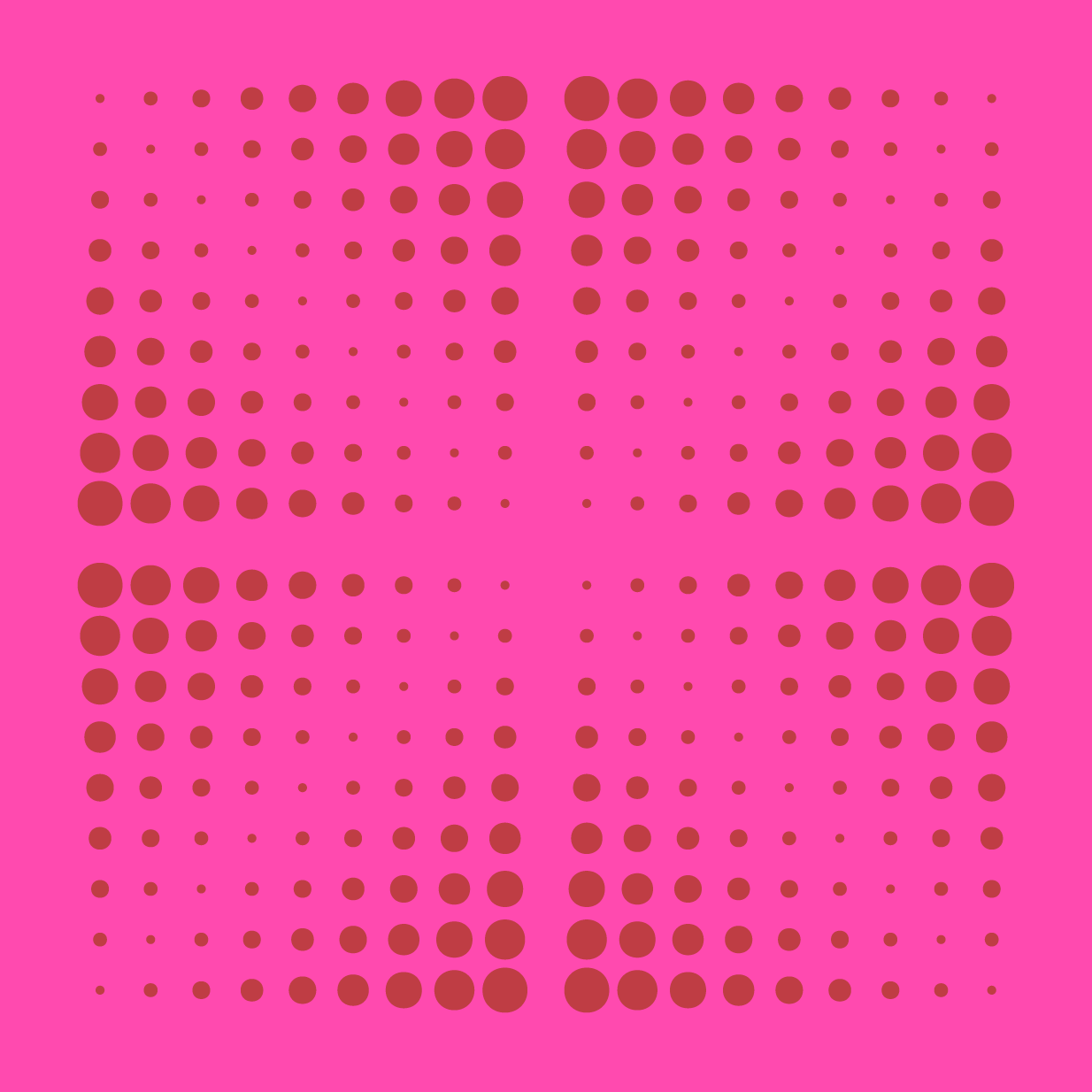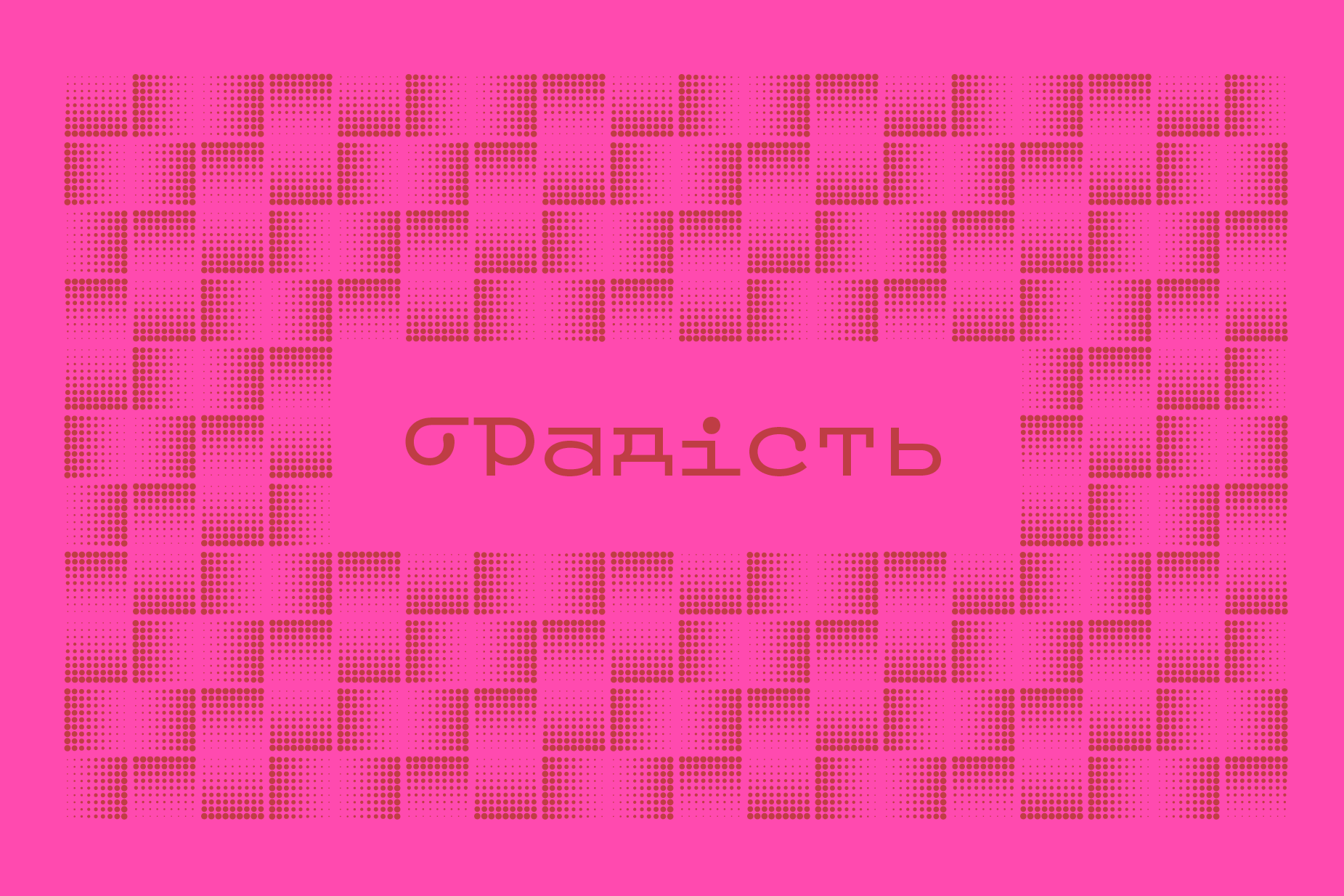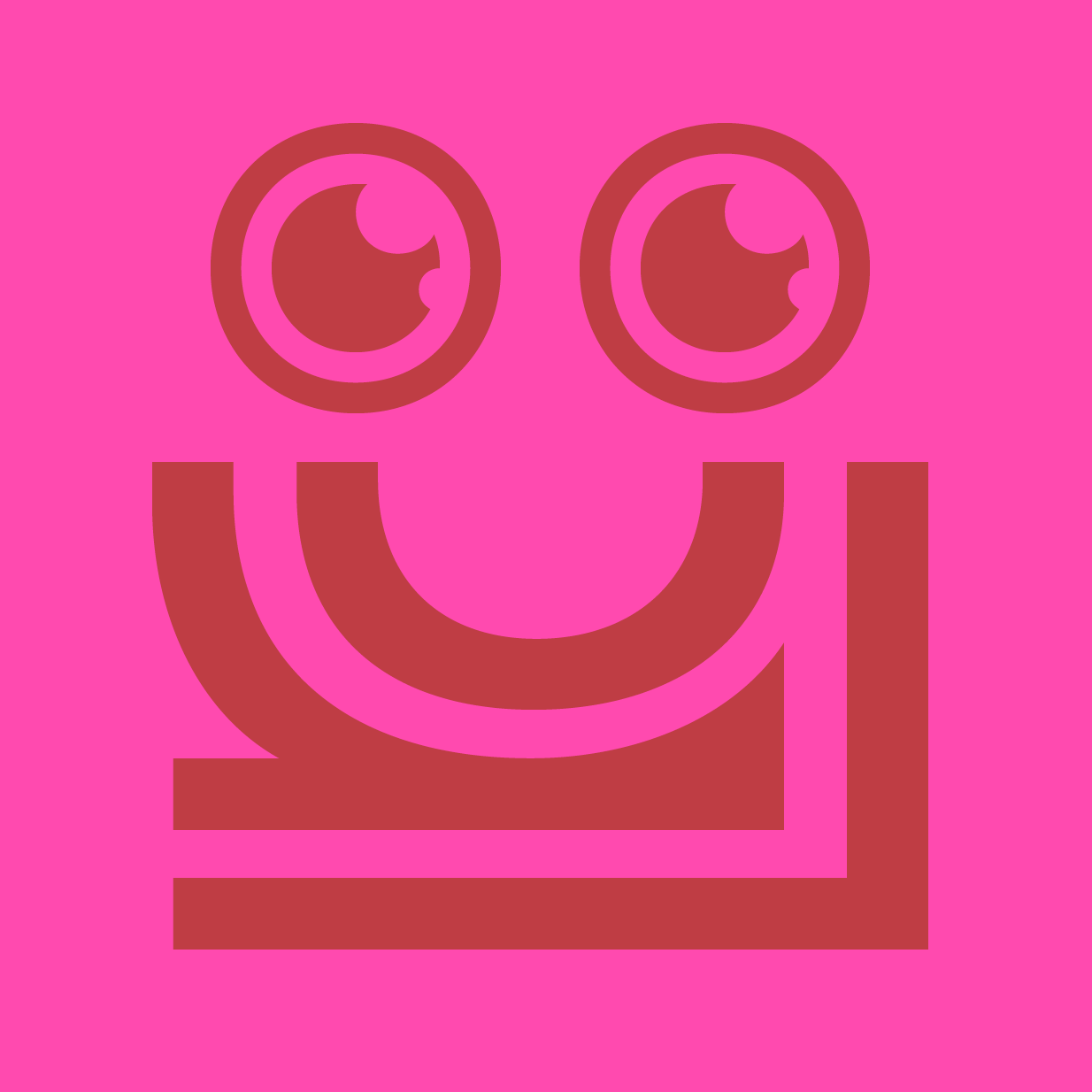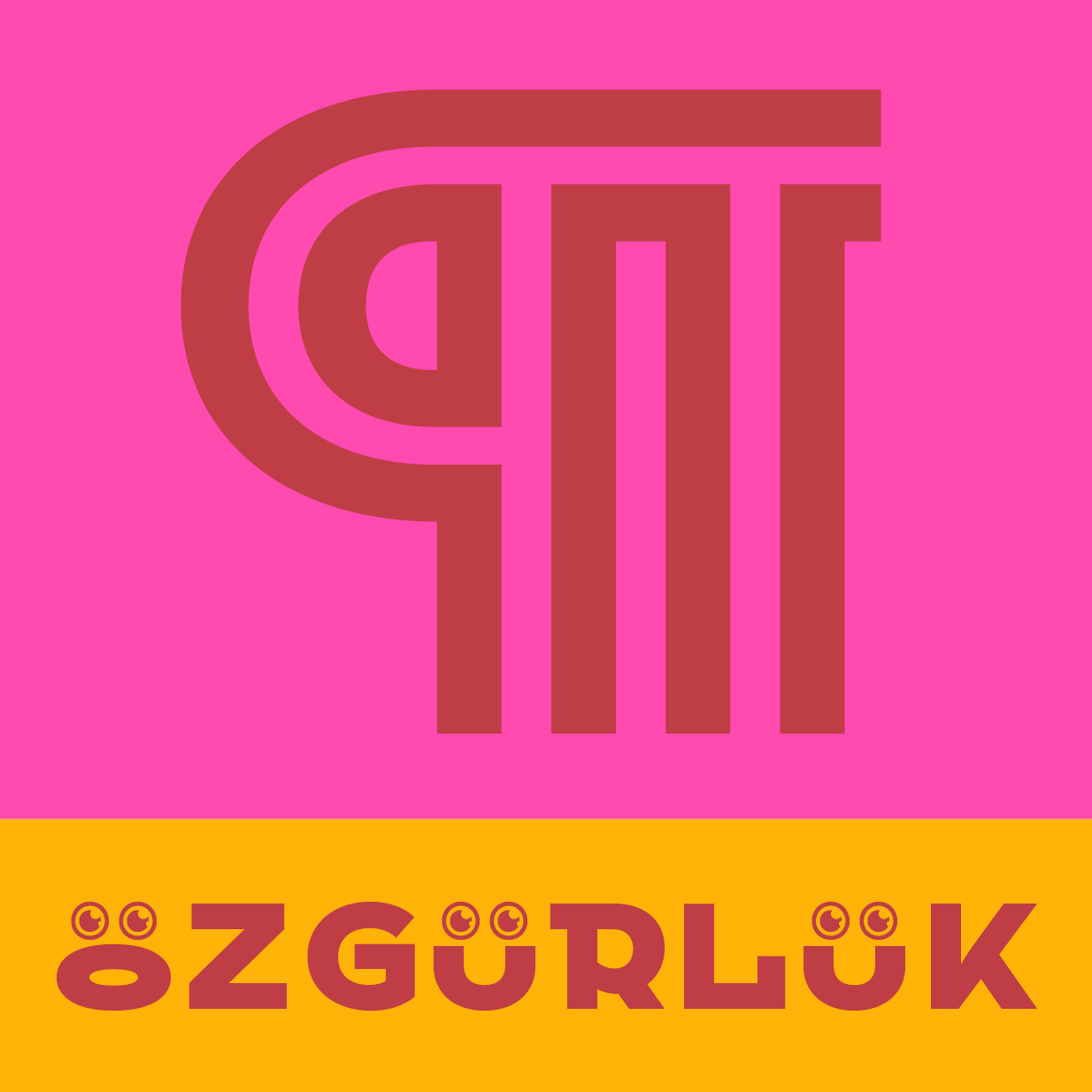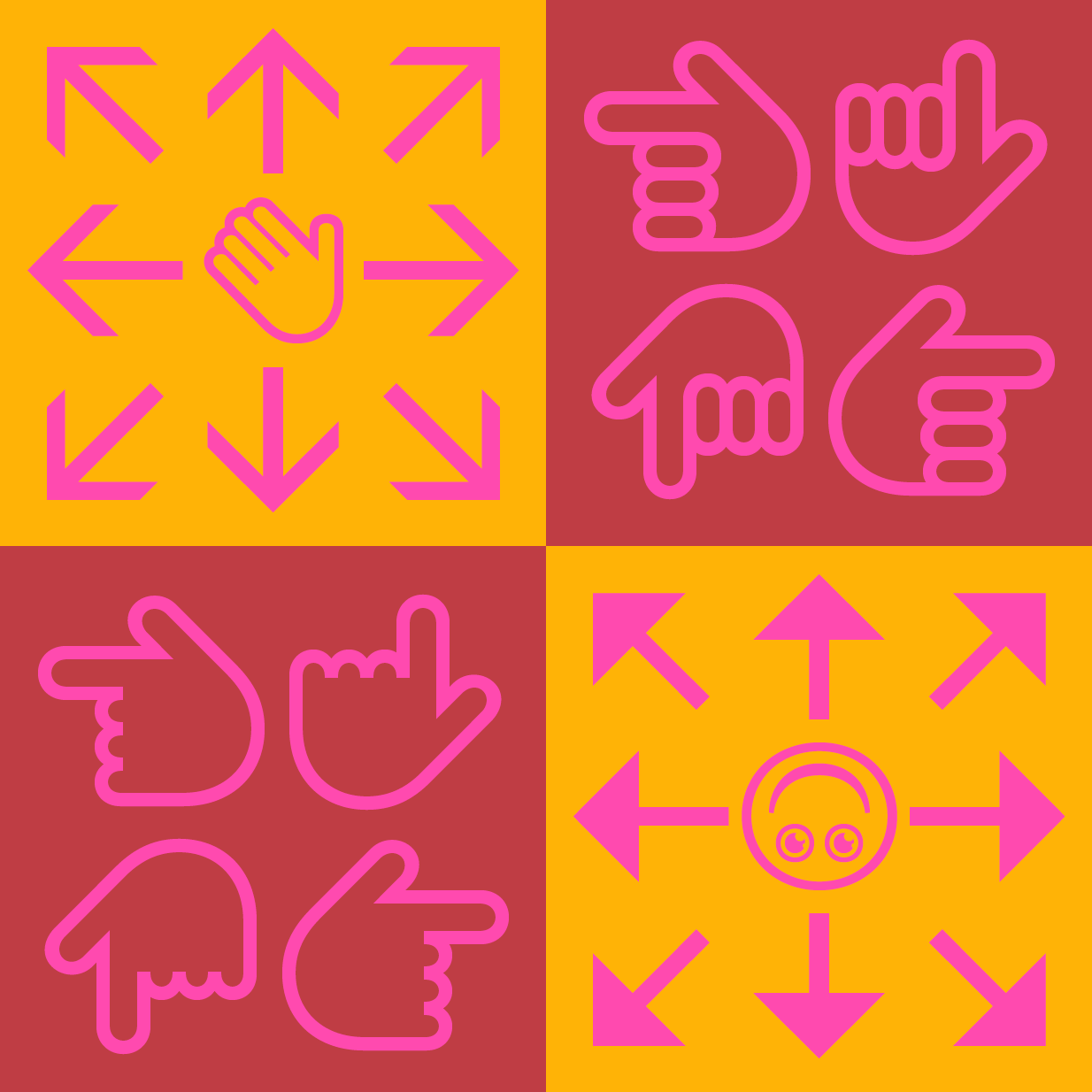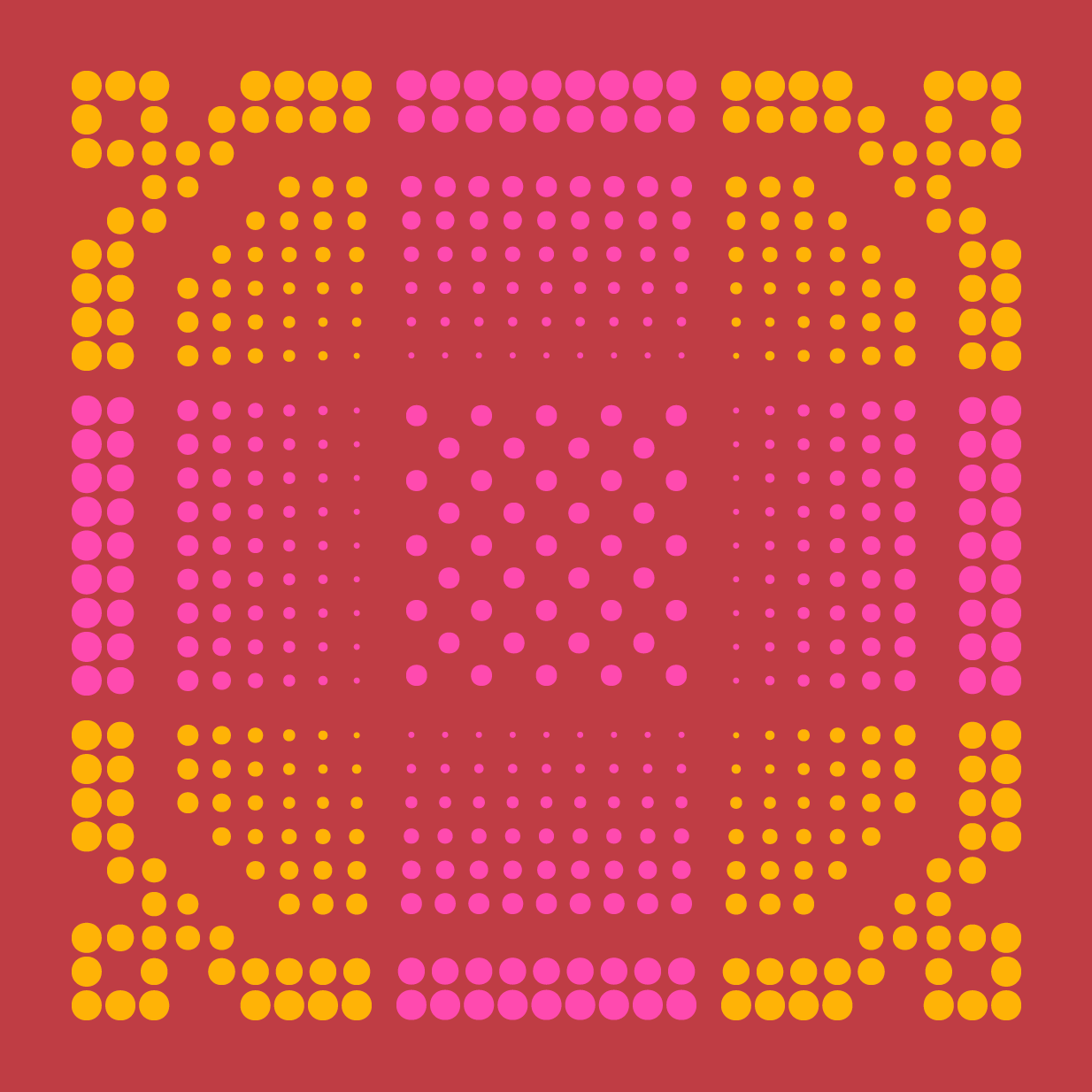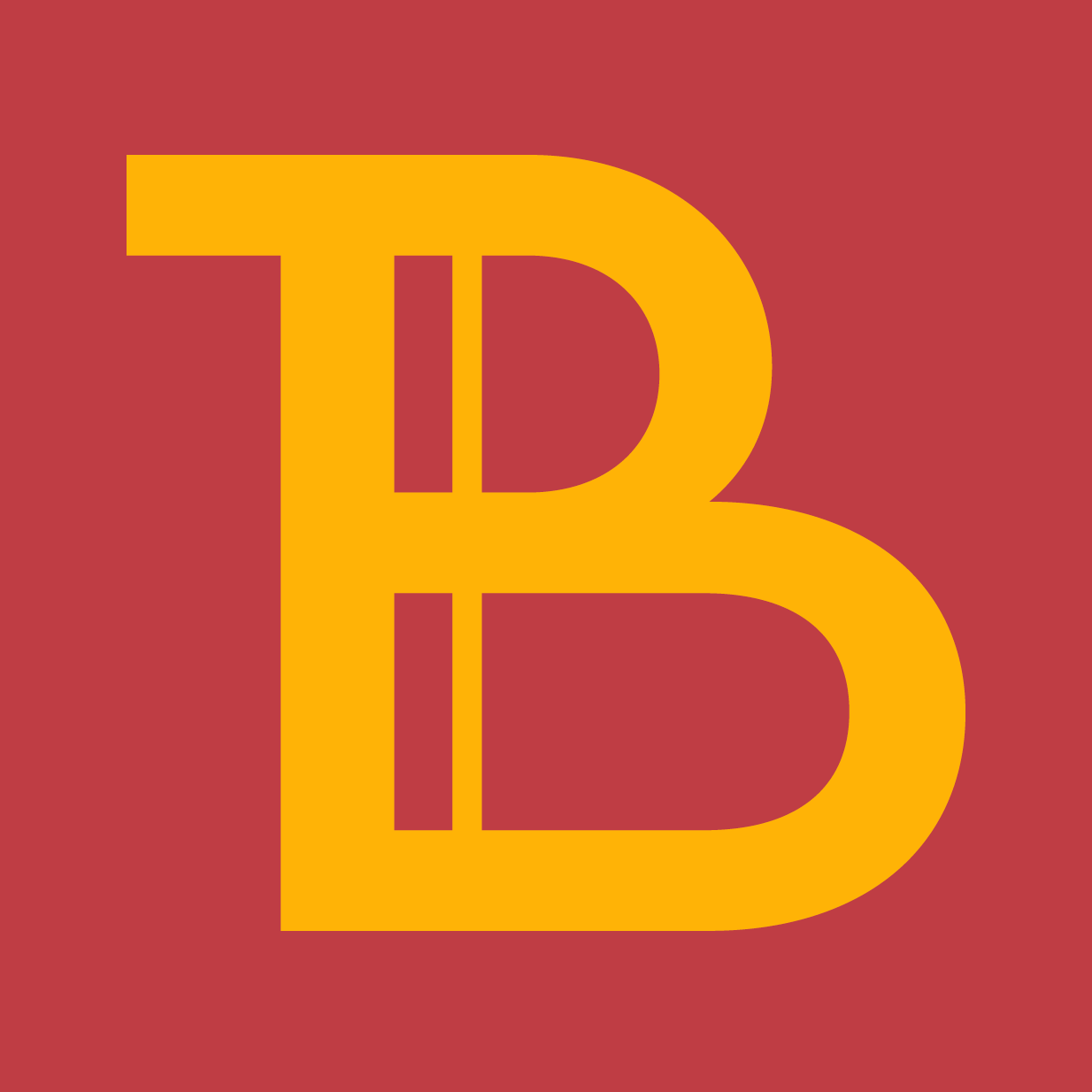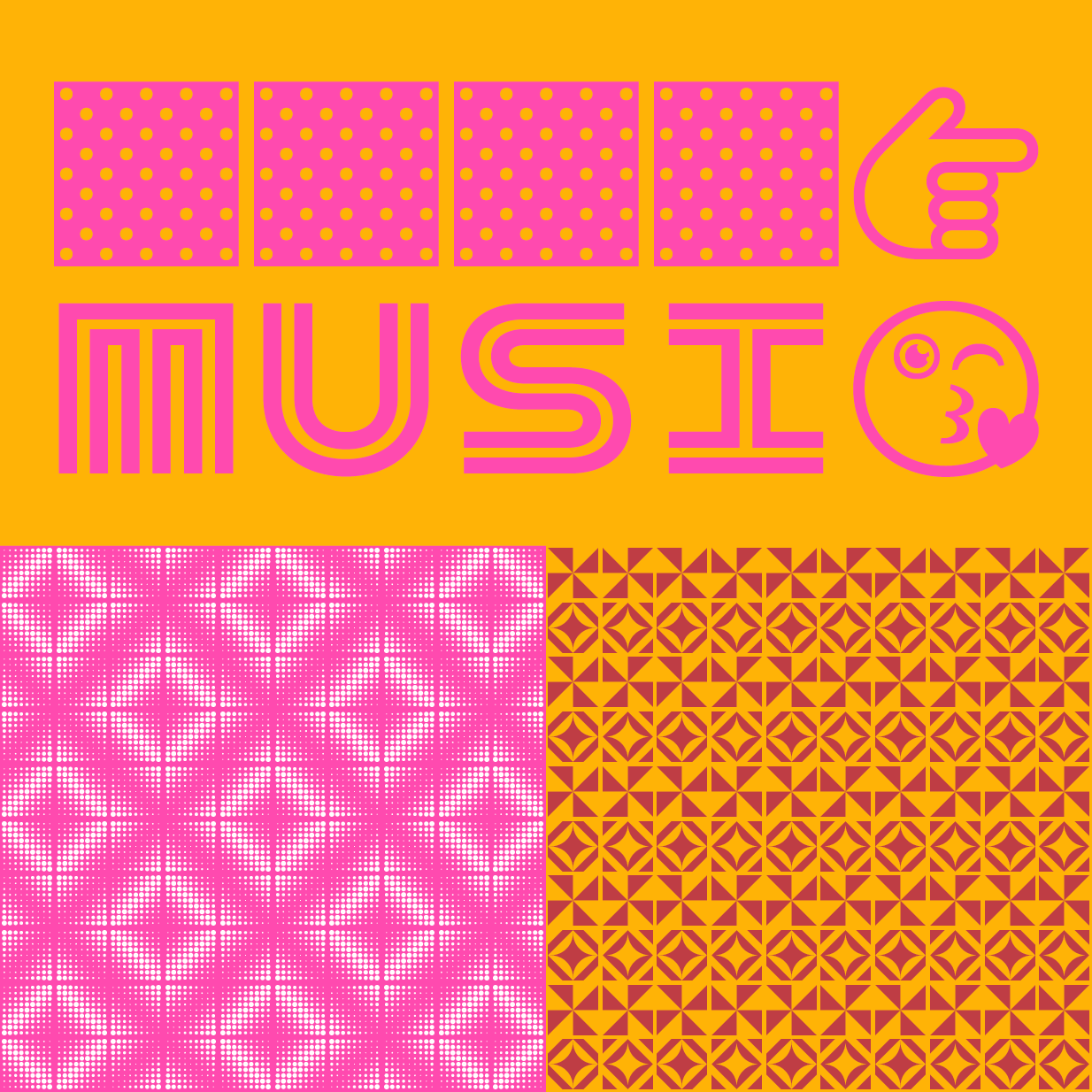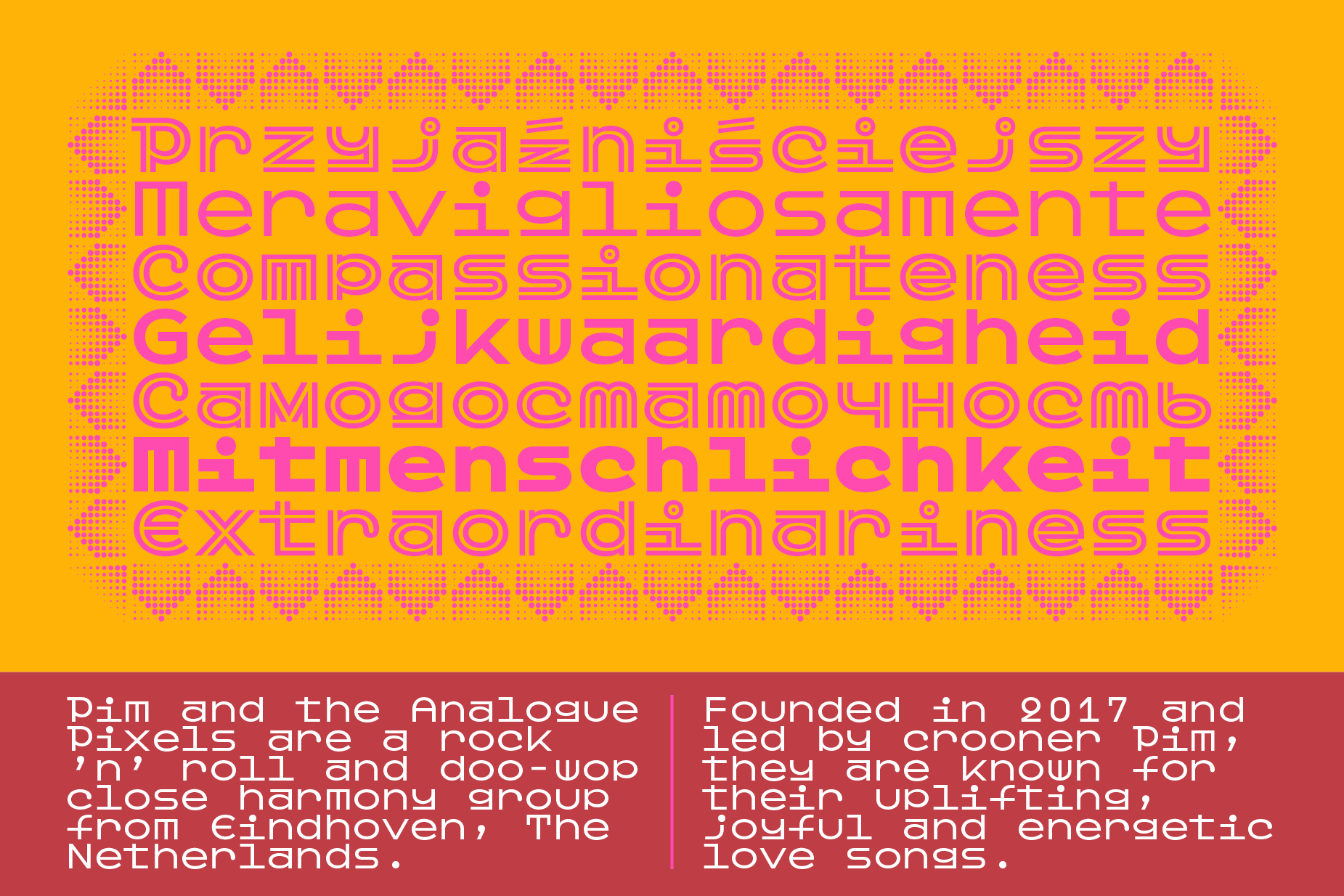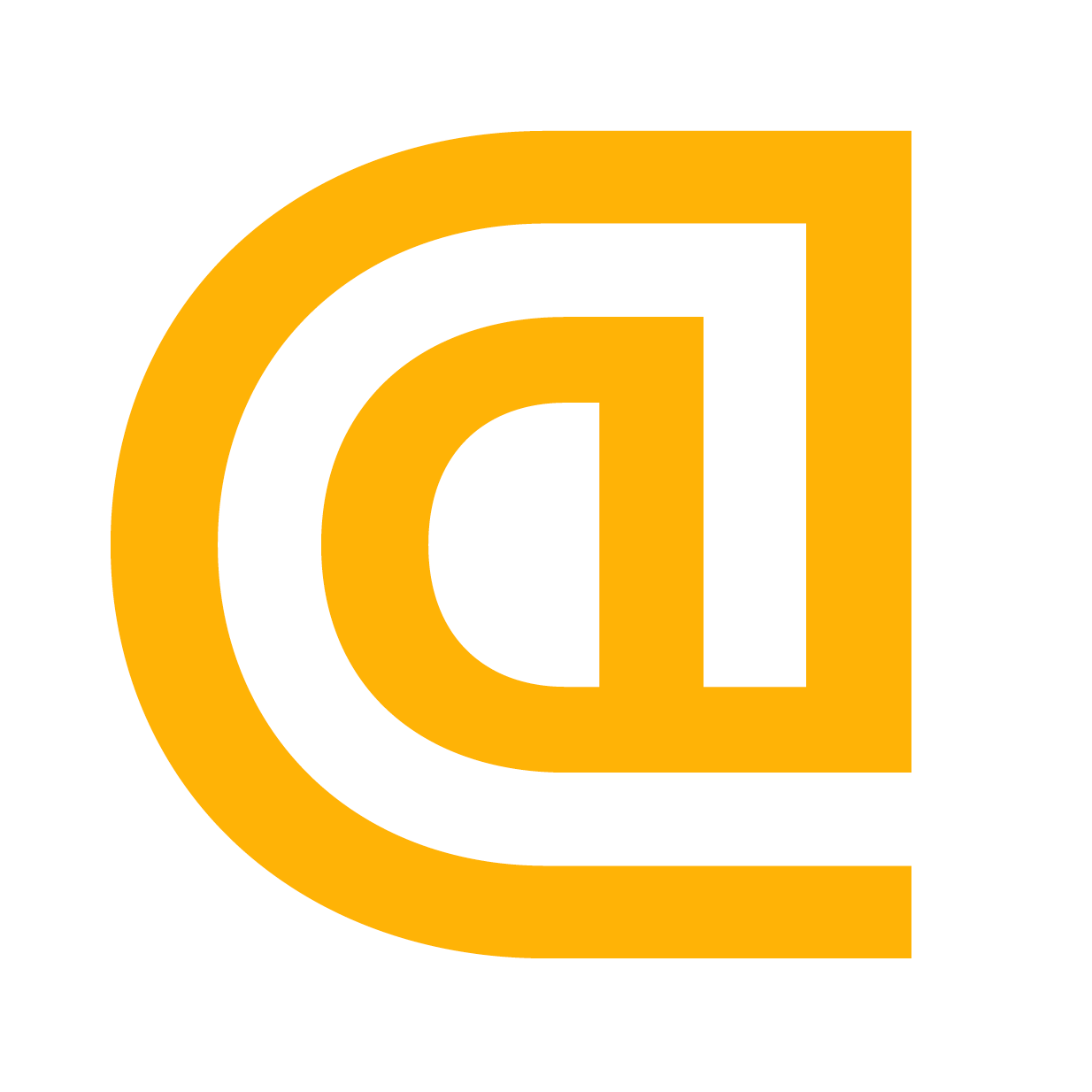
In times like these we all need more Fröhlichkeit and whimsy in our lives. Cue our latest release Pim (and the Analogue Pixels). Originally an uppercase monospaced typeface originally designed for letterpress printing and originally inspired by Johannes Willem “Pim” Pootjes’s iconic shop lettering, it now has a lowercase to play along. And lots of pictograms and ornaments. Just in time, maybe, for your holiday designs!